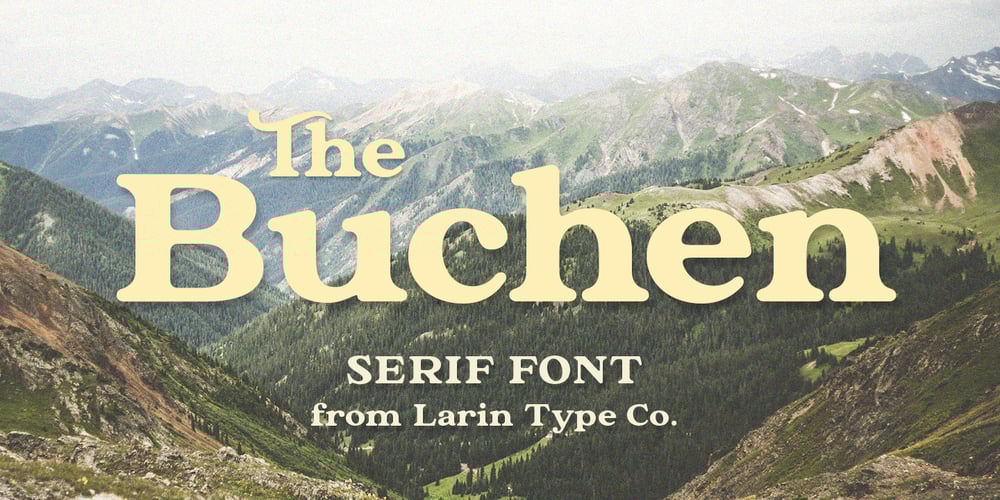
The Buchen Font Family was designed by Pavel Larin and published by Larin Type Co. The Buchen contains 1 styles and family package options. The Buchen is an excellent combination of smooth shapes and medium weight. It will fit perfectly into any project, both in a modern style and in a vintage style. It can also be classic and more expressive and playful thanks to the alternatives and ligatures that are harmoniously combined in this font and add charm to your project. Making it more versatile to use. This font is easy to use has OpenType features.